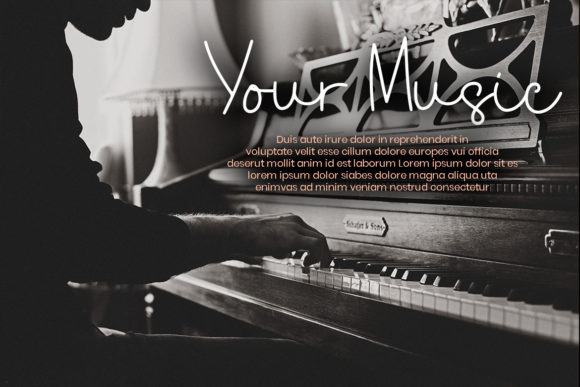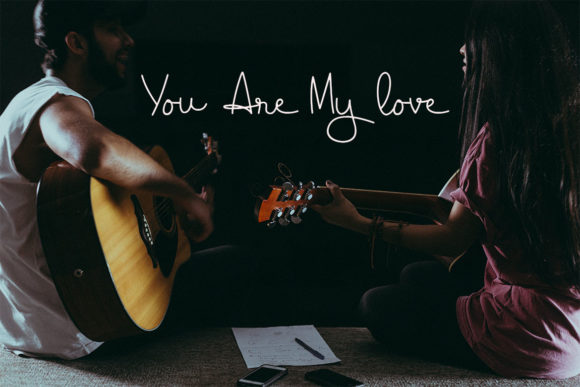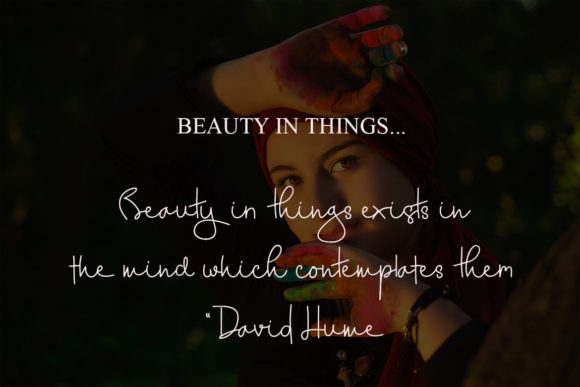
About Breathing Font
Breathing is a stylish and delicate script font. It has a clean, thin and smooth vibe and it will be a hit for any design that you want to add it to. Use this font for your designs and explore its endless possibilities.